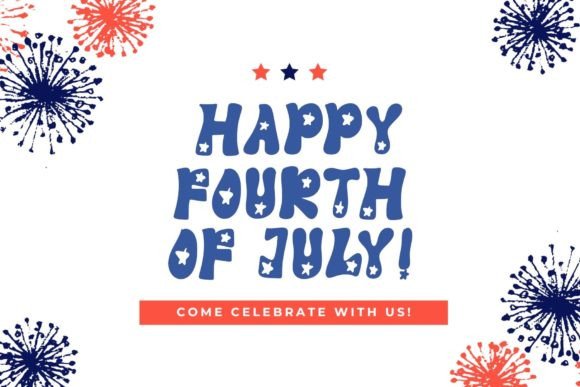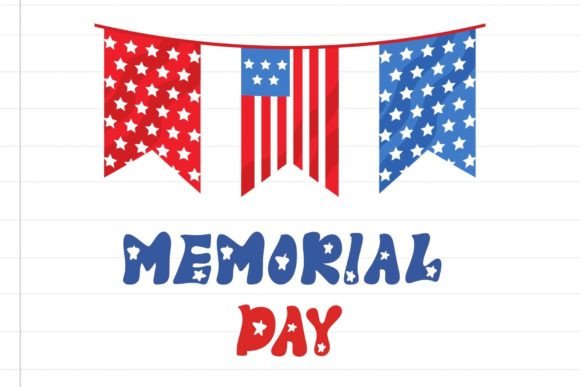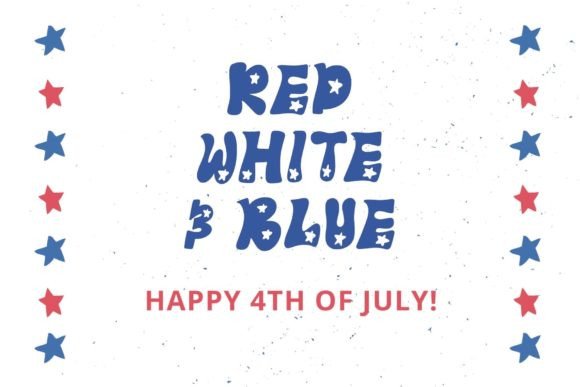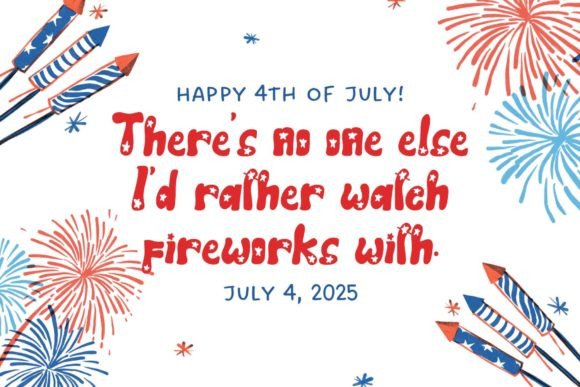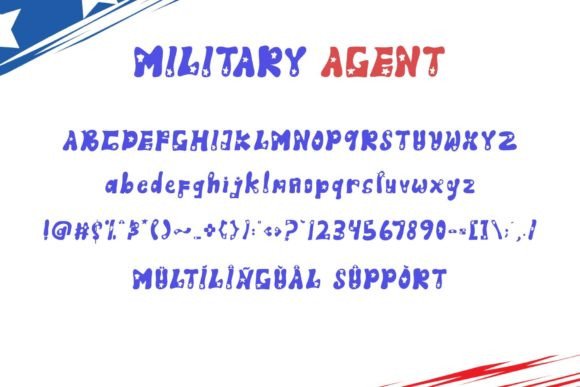
Introduction to Military Agent Font
“Military Agent” is a patriot-themed display font.
This font is decorated with a star shape on each letter Equipped with uppercase, lowercase, numerals, punctuation, and multilingual support.